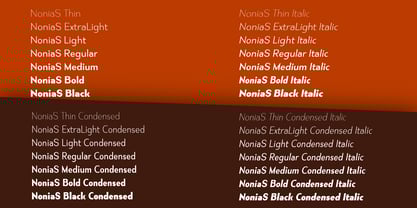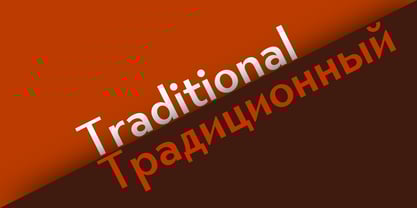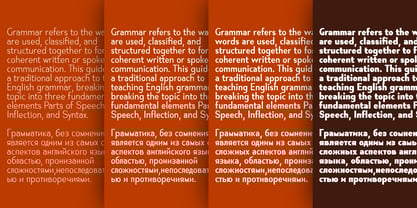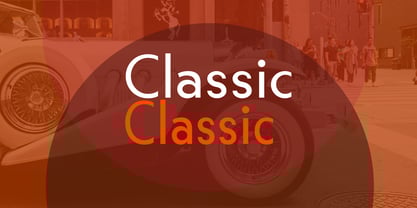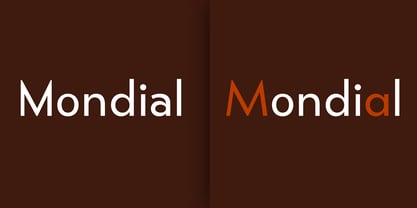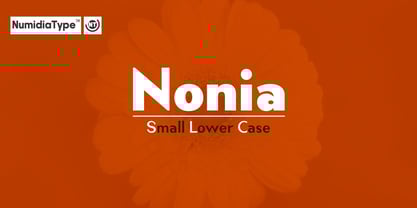
Nonia Small
by NumidiaType
The Nonia Small Font Family was designed by Yassine Abdi and published by NumidiaType. Nonia Small contains 28 styles and family package options.
Nonia™ (S) Small Lowere Case is a sleek and modern sans serif font family, designed with elegance and legibility in mind. Its small lowercase characters feature subtle curves and balanced proportions, making it ideal for both digital and print applications. The font combines simplicity with sophistication, offering a clean and refined aesthetic that enhances readability while maintaining a contemporary flair. Nonia's versatility shines through in its well structured design, making it suitable for a variety of uses, from editorial layouts to branding and web design. Whether for body text or display purposes, Nonia’s small lowercase characters bring a polished and professional touch to any project.
It's available in two families: Default and Condensed.
Designers: Yassine Abdi
Publisher: NumidiaType
Foundry: NumidiaType
Design Owner: NumidiaType